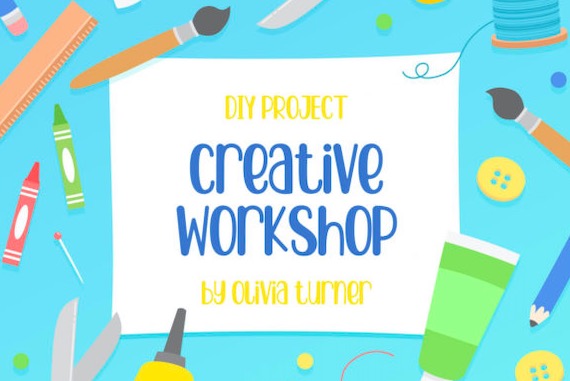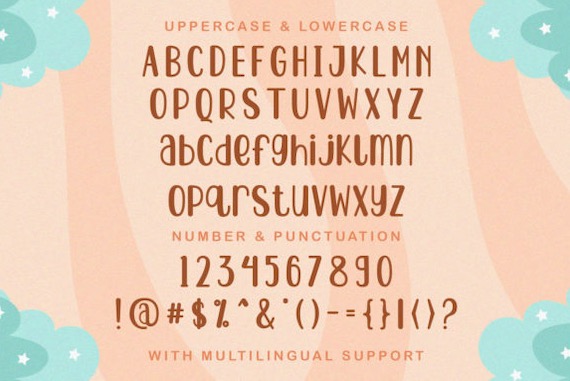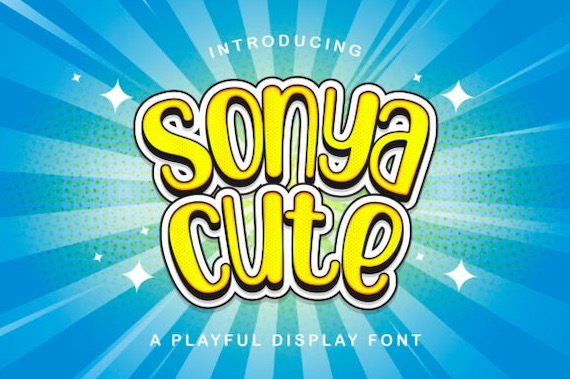
Sonya Cute is a good and cheerful decorative display font that was created and shared by StringLabs. It has a fresh and Playful look, so, it will be a hit for each of your children or school projects!
- Alternates
- Uppercase and Lowercase letters
- Numbering and Punctuations
- Multilingual Support
Sonya Cute Decorative Font